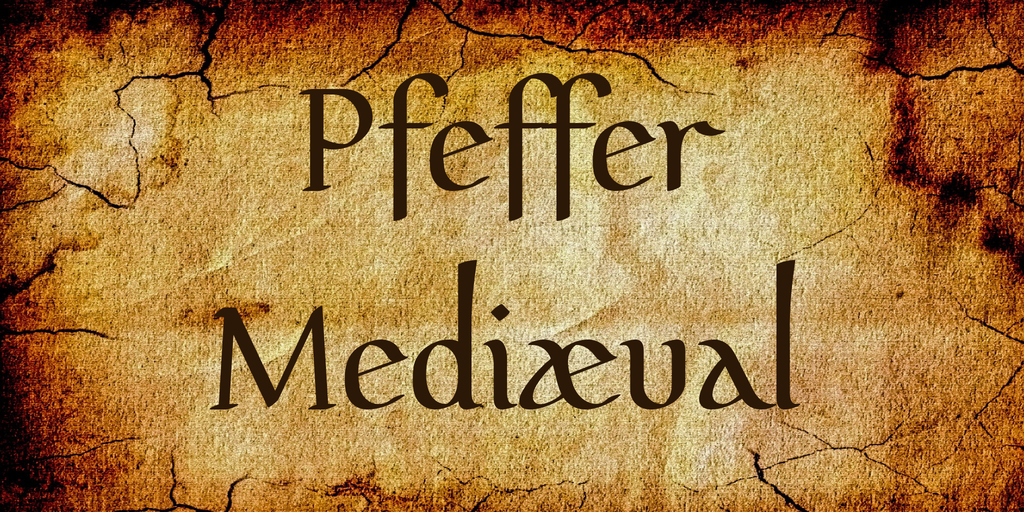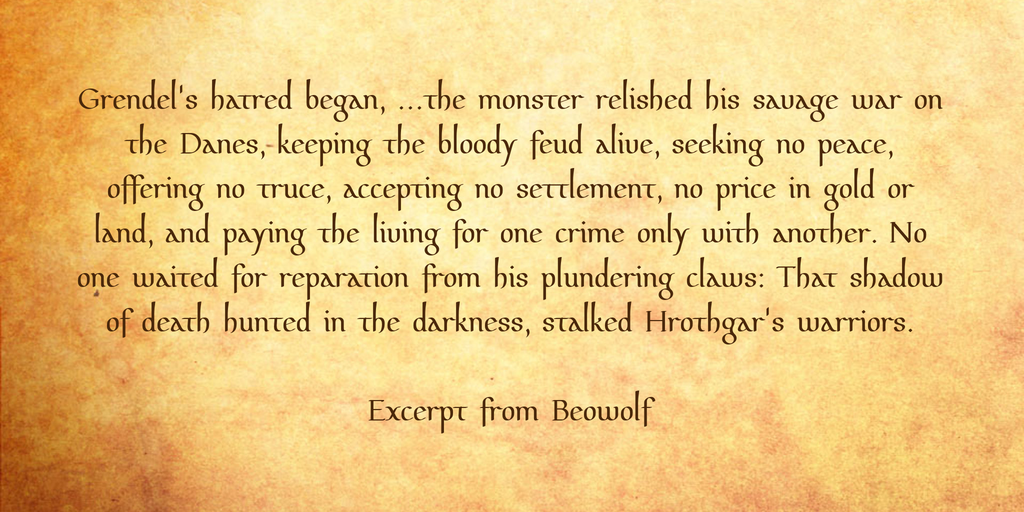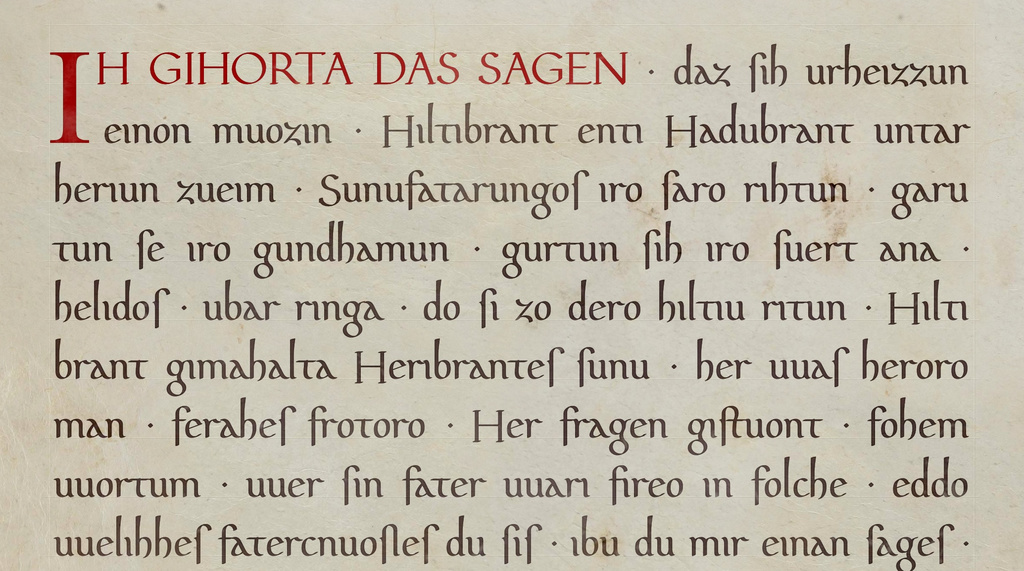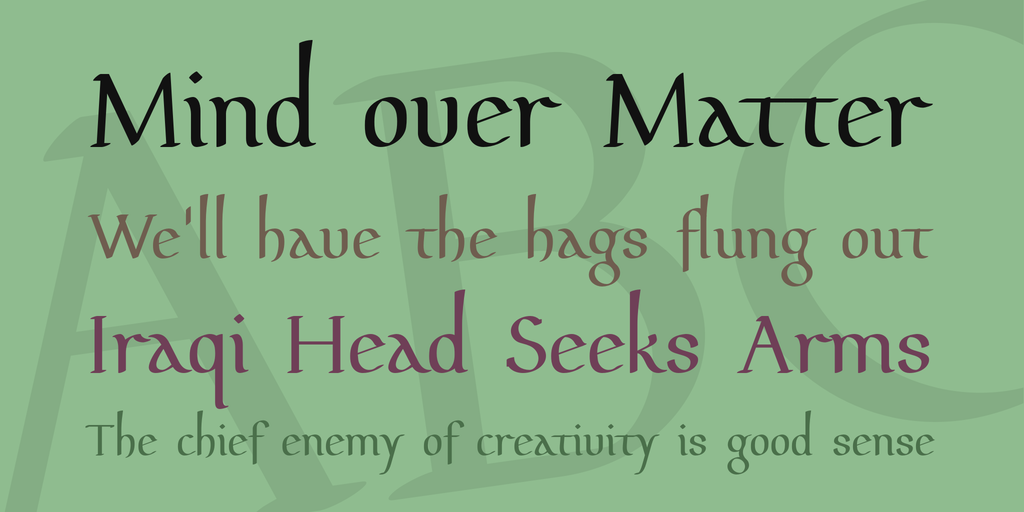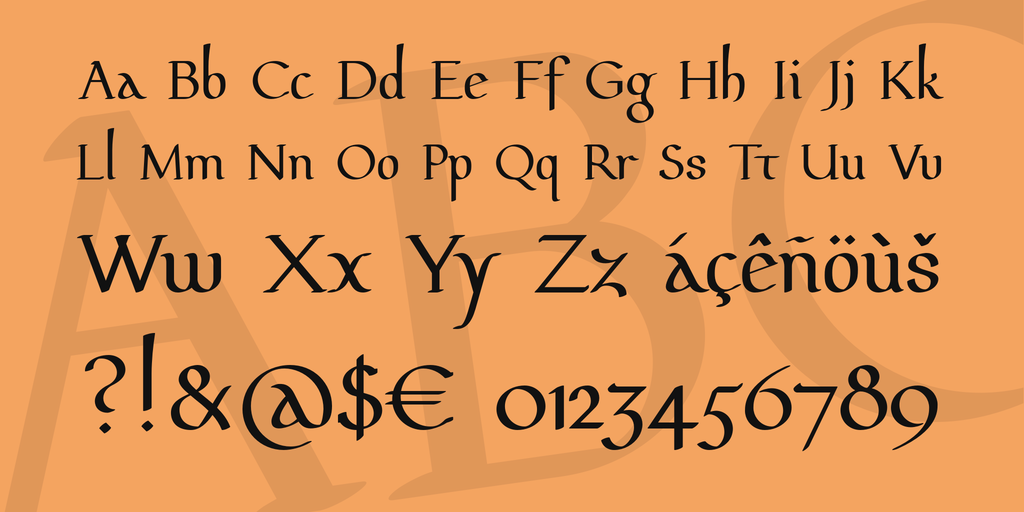
Pfeffer Mediæval Font
Pfeffer Mediæval Font is the idealised image of a Carolingian minuscule, the script of Charlemagne, on which our modern Antiqua has been modelled.
In the young kingdoms that had been founded on formerly Roman territory during the migration period, several so called Post-Roman scripts emerged up to the 8th century. These were already minuscule scripts using ascenders and descenders. Although all of them were derived from uncial, half uncial and new Roman cursive, they differed quite a lot regionally. Moreover, they were difficult to read, not least due to their extensive use of ligatures. Beginning from the end of the the 8th century a standardisation took place in the course of theCarolingian Renaissance. Advocated by Charlemagne and with important collaboration of Alcuin of York​—​who had responded to a call to Charlemagne’s palace school in Aachen​—​an easy to read script was developed that, beginning from the 9th century, quickly spread across the frankish scriptoria. This Carolingian minuscule became the common book and administrative script in the Carolingian empire and all over western Europe except Ireland, until it was in turn replaced by the Gothic minuscule script.
In England, where the new script took a very belated foothold, the insular minuscule script (one of the above mentioned Post-Roman scripts) was in coeval use up to the 12th century. This insular hand script primarily differs from the continental one in the shape of a few letters.
Being my most extensive font as yet, Pfeffer Mediæval contains more than 800 glyphs the whole of which cannot be displayed here. The Latin range includes numerous accented letters and additional characters for purposes of medieval philology. As far as the coverage reaches, the character mapping follows the recommendations of the Medieval Unicode Font Initiative. Among those additional characters are several insular variants of Latin letters, rendering Pfeffer Mediæval suitable for display of Old English texts as well.
Character set of Pfeffer Mediæval
Finally, this font also encompasses a Gothic and a Runic character set.
OpenType Features
Pfeffer Mediæval contains OpenType features for historical text layout, insular script and Gothic alphabet as well as for small capitals and particularly large capitals.
Activating the “hist” feature for historical text layout generates a typeface that comes closer to the historic customs in writing Carolingian minuscule. The umlauts ä, ö and ü are replaced by ligatures like æ and œ, v is replaced by u and w by uu, i is replaced by ı and finally s by ſ. Punctuation is reduced to mid-dot (“·”), and all marks (or combinations of such) are replaced accordingly. The following example shall give a demonstration. In Order to make this feature available in Microsoft Word 2010 (which supports just a few OpenType features, including the stylistic sets), I’ve added a copy of this feature as stylistic set “ss05”.